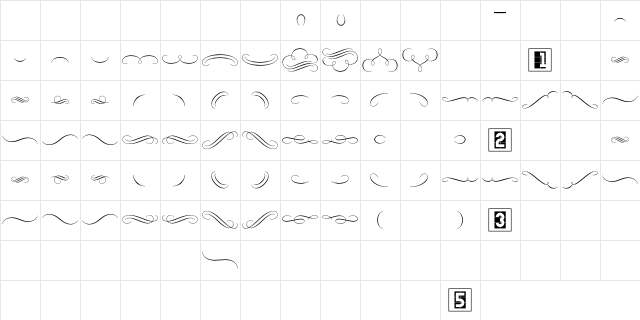
Adana Ornaments
| Style | Ornaments |
| Foundry | Andreas Seidel / astype |
Design Context for Adana Typeface
Adana is built around its visual character rather than neutral utility — its distinctive forms are designed to make an impression at display sizes.